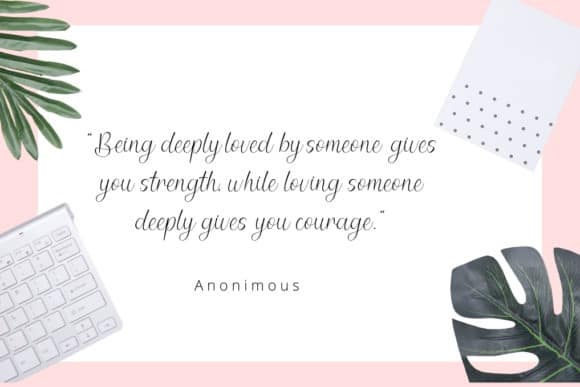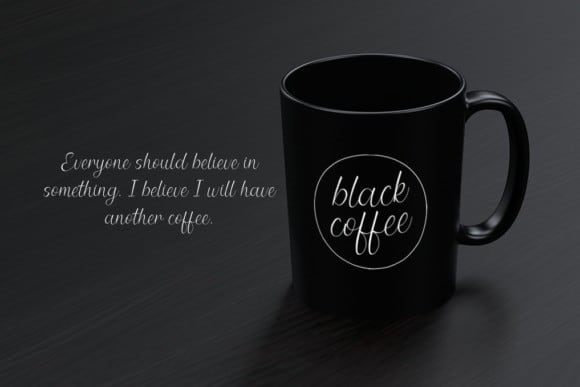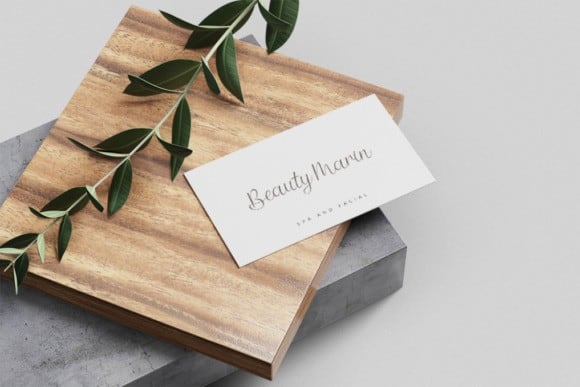
Amanda Script Font is a beautiful and elegant script font. Made from font designer named Rahagita Studio. Amanda simplifies elegance into one truly outstanding handwritten font.
This font is the perfect fit for all of your logos, branding, social media, and crafty DIY projects.